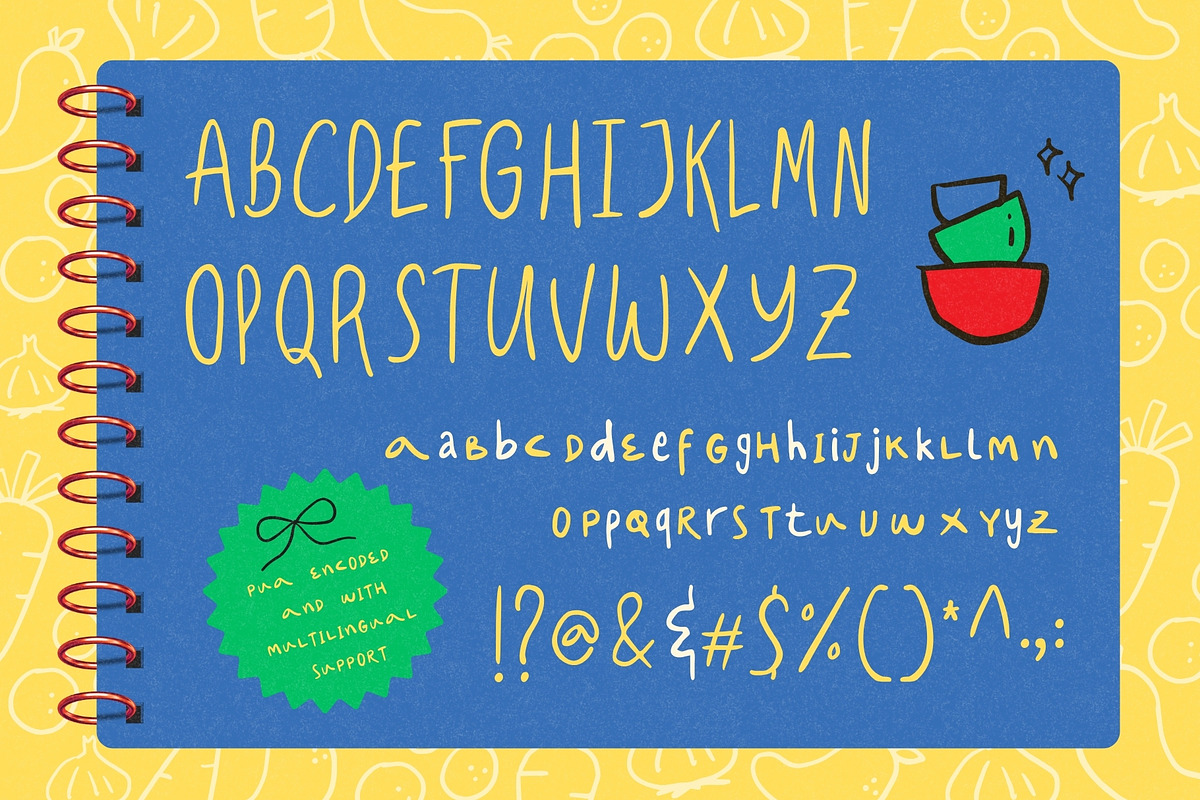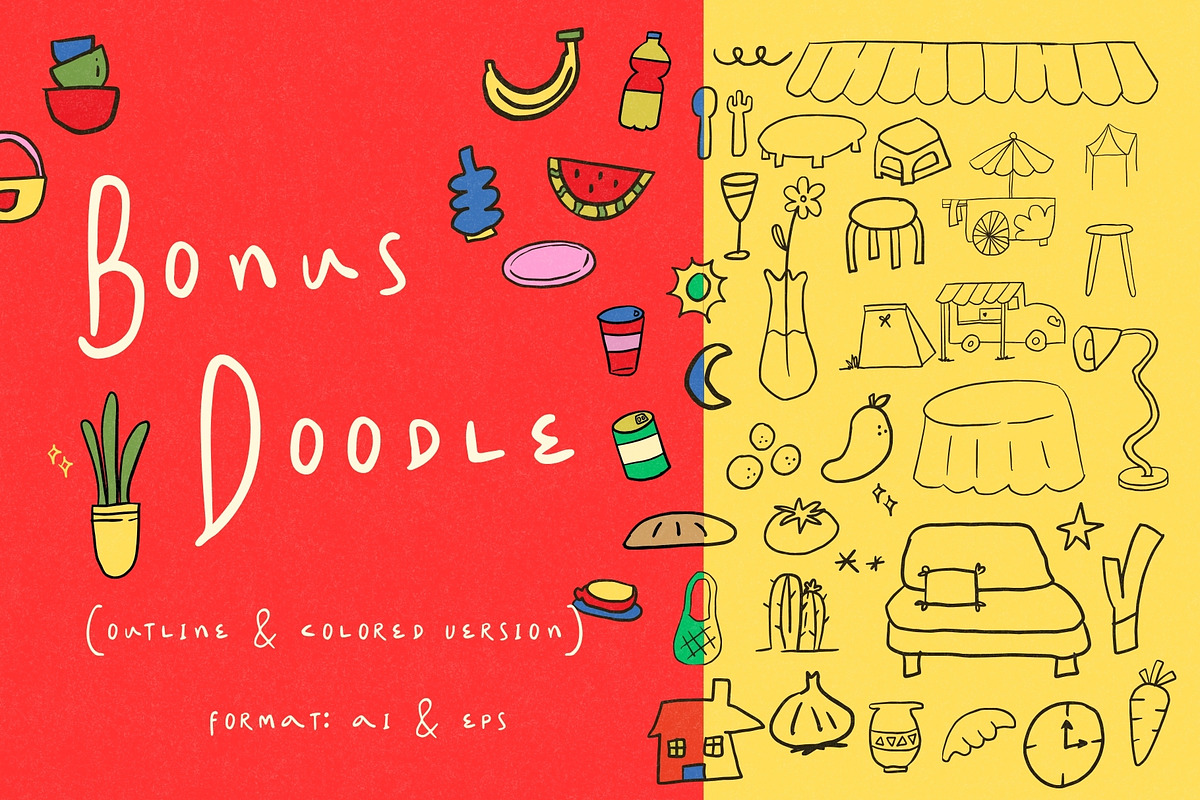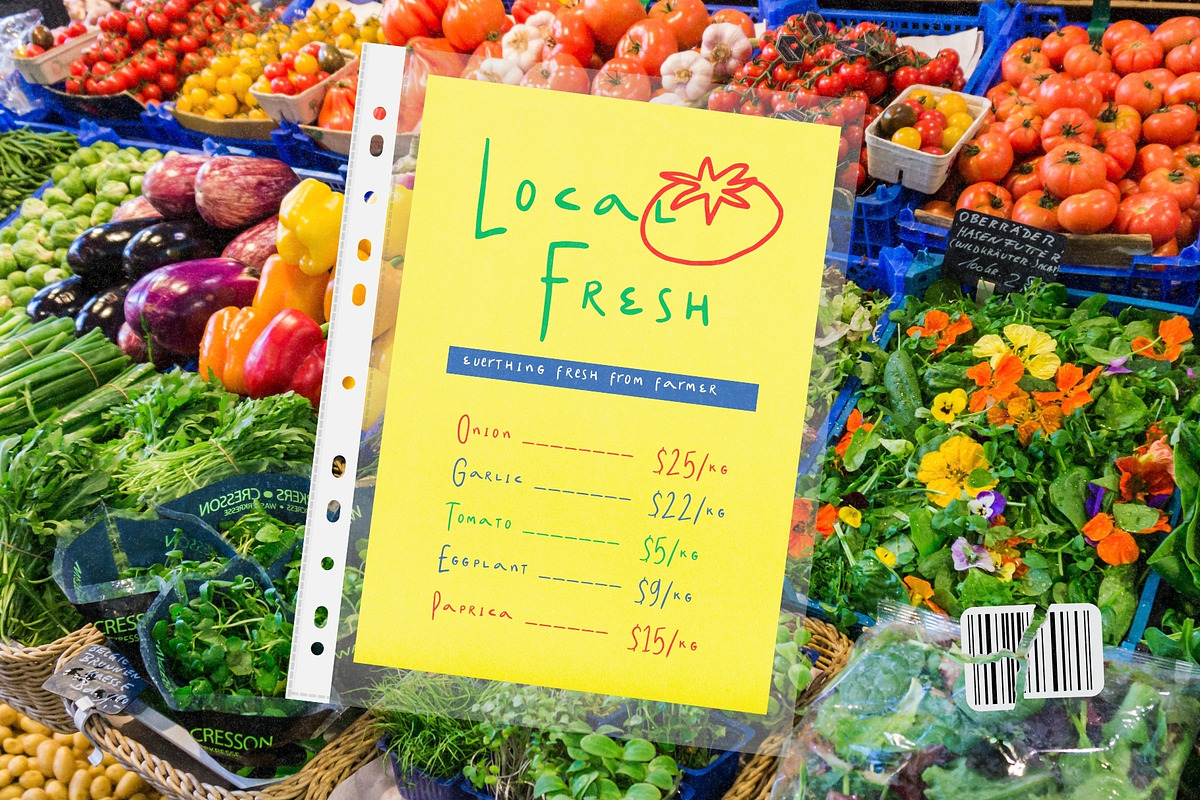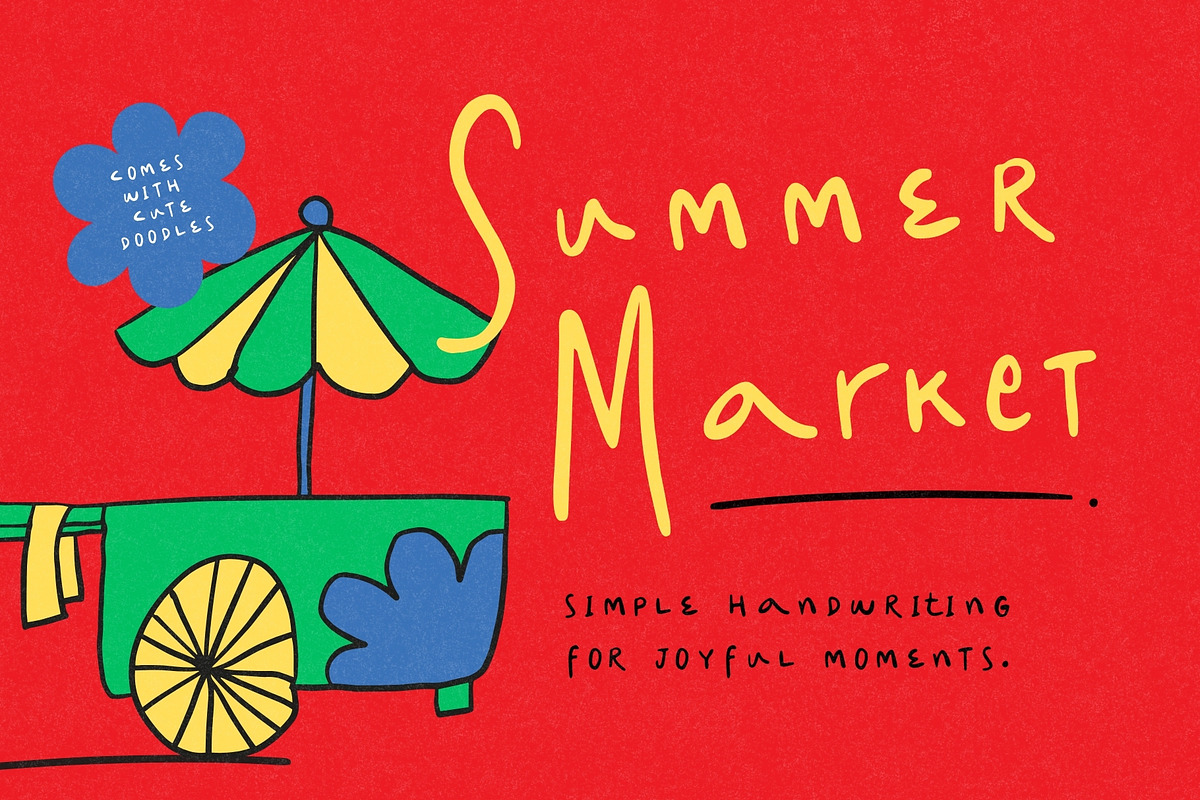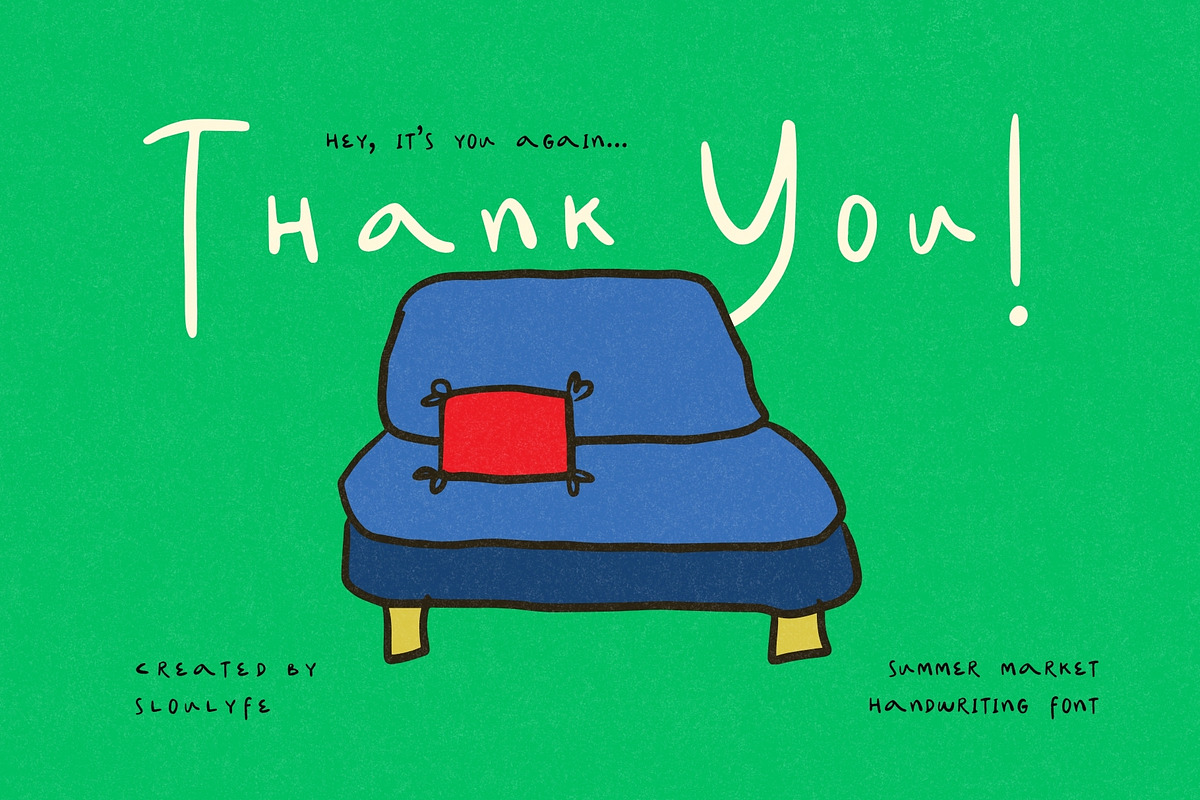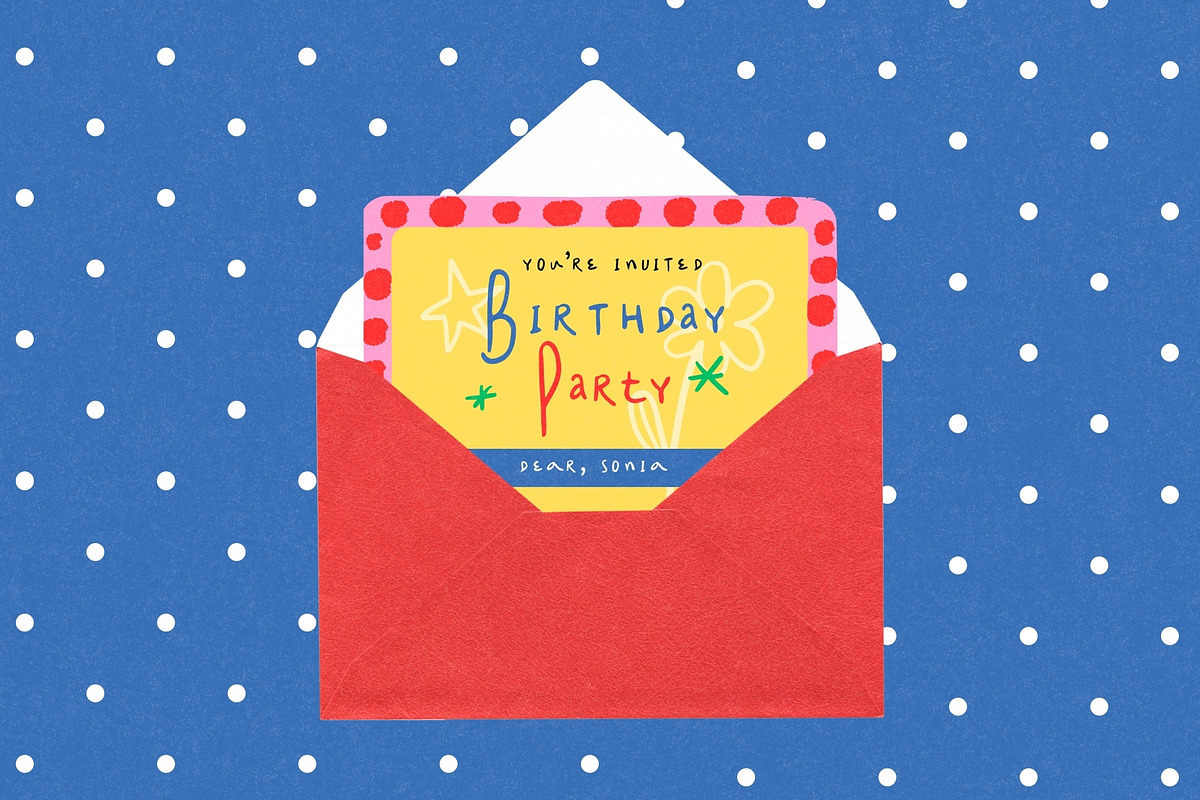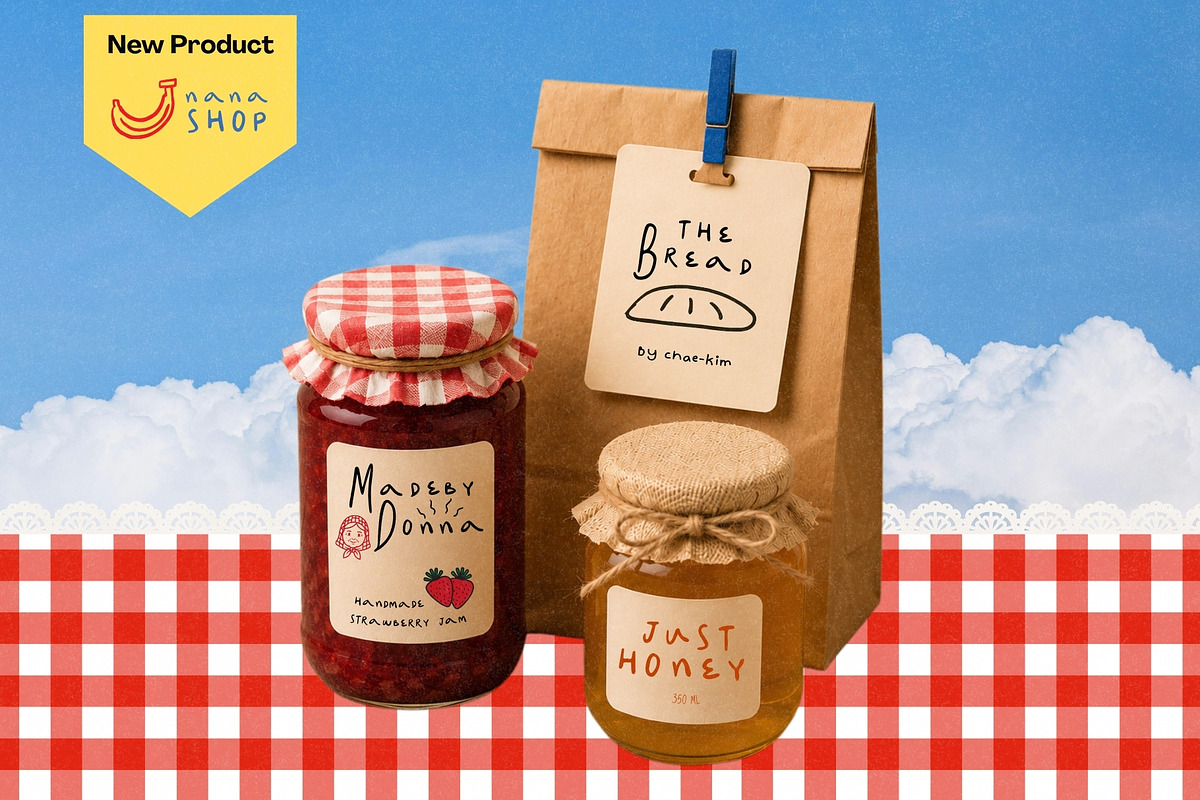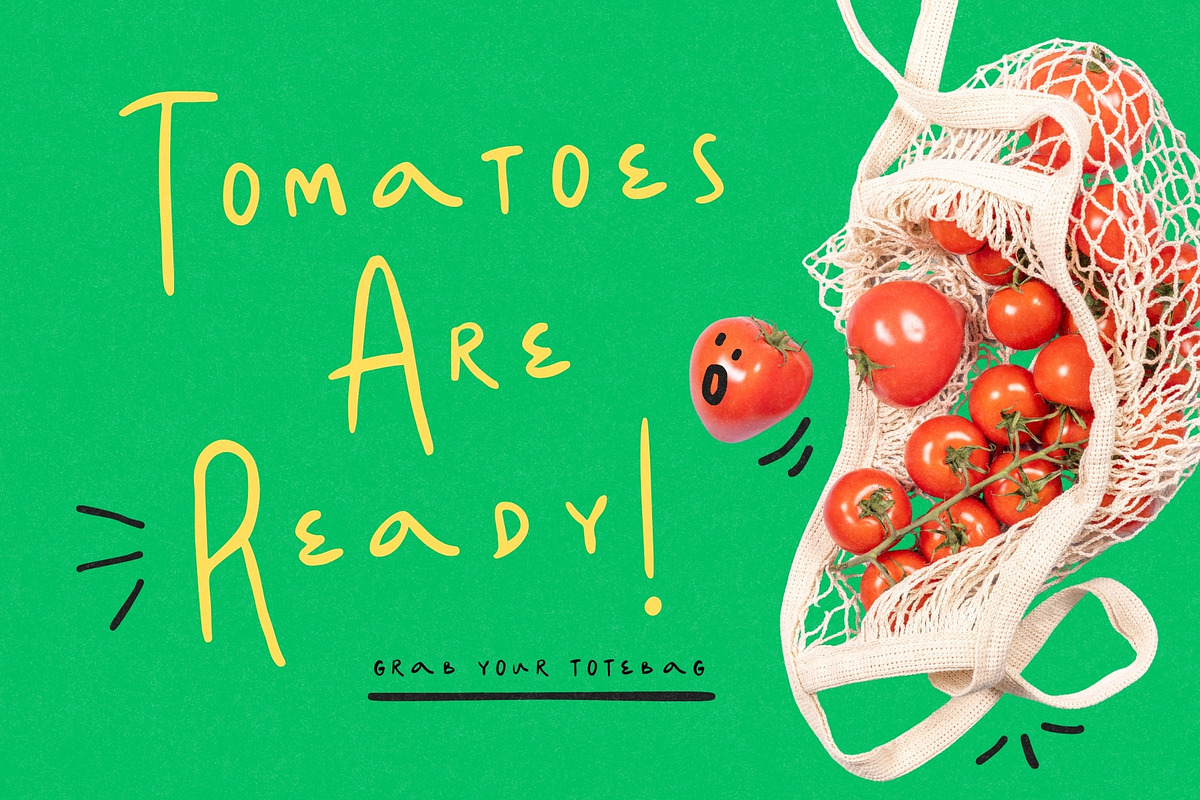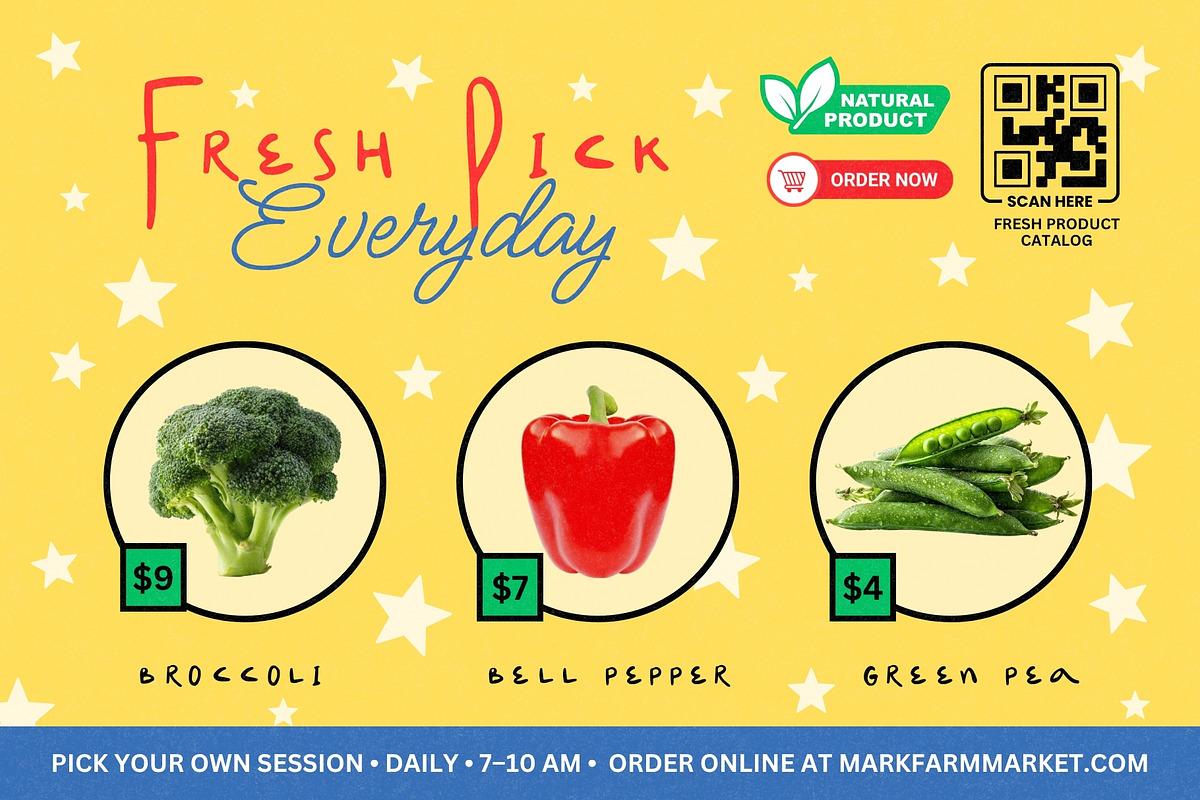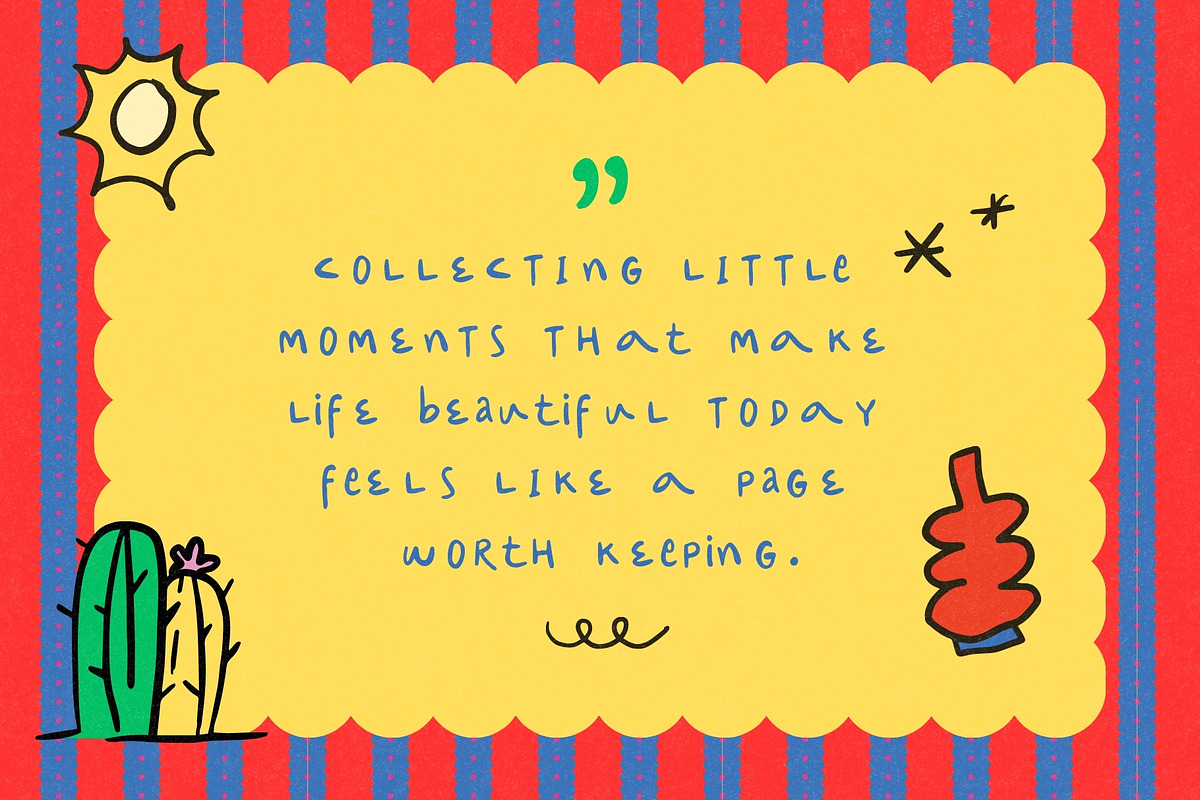
Summer Market Simple Handwriting
Summer Market is inspired by the simple pleasures of sunny days, from casual notes and weekend outings to laughter shared under clear blue skies. Its carefree handwritten letterforms dance across the page with a natural rhythm that feels warm and friendly.
It comes with charming hand-drawn doodles inspired by food, outdoor markets, and simple summer adventures, Summer Market brings a cheerful handmade character to packaging, children's projects, branding, posters, social media graphics, product labels, and creative displays that call for a touch of joy and spontaneity.
Features :Uppercase & lowercase, Numbers and punctuation, Alternates or Ligatures, Multilingual support & PUA encoded